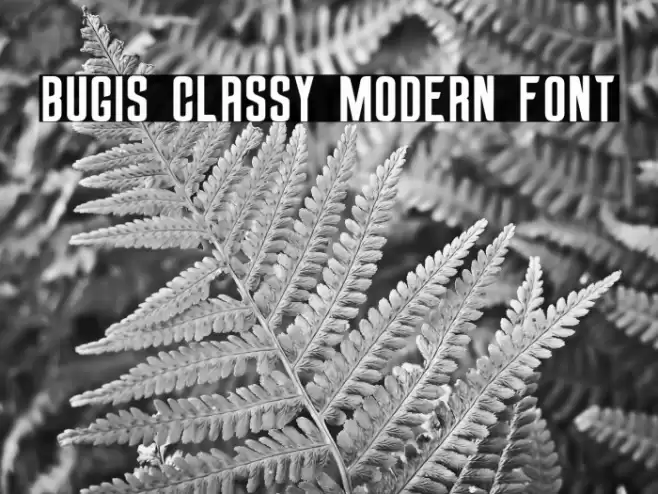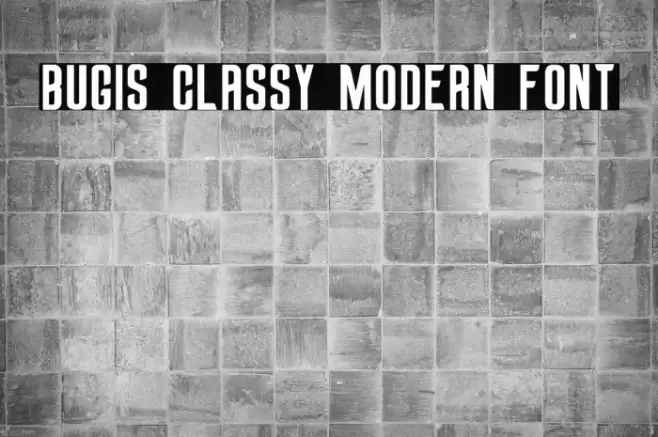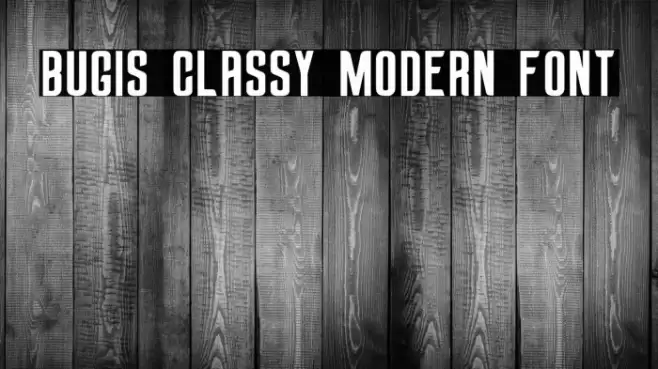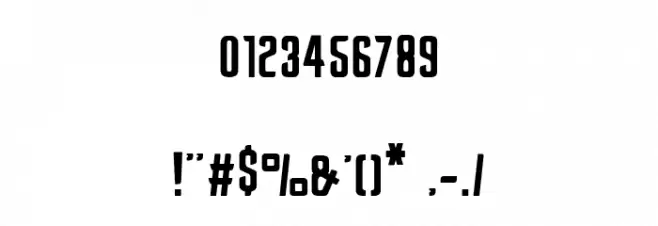
Bugis Classy Modern Font Font
Bugis Classy Modern Font Description
This font features a bold and modern aesthetic with a strong presence. The uppercase letters are tall and slightly condensed, giving a sleek and sophisticated look. The lowercase letters maintain a consistent style, complementing the uppercase with a uniform height and width. The numerals are clear and distinct, matching the overall boldness of the alphabet. Special characters are designed to fit seamlessly with the rest of the font, ensuring versatility in various applications. The font's clean lines and contemporary style make it suitable for a wide range of design projects.
A bold, modern font with a sleek and sophisticated style from Regular fonts.
- Proposed Projects: Ideal for branding, headlines, posters, and modern web design.
- Use Case: Headlines, Logos, Branding